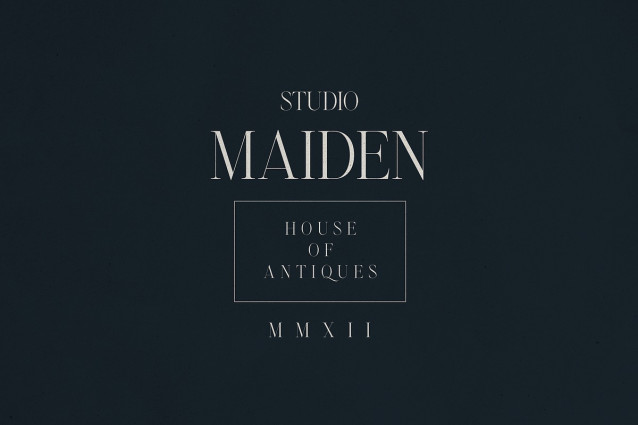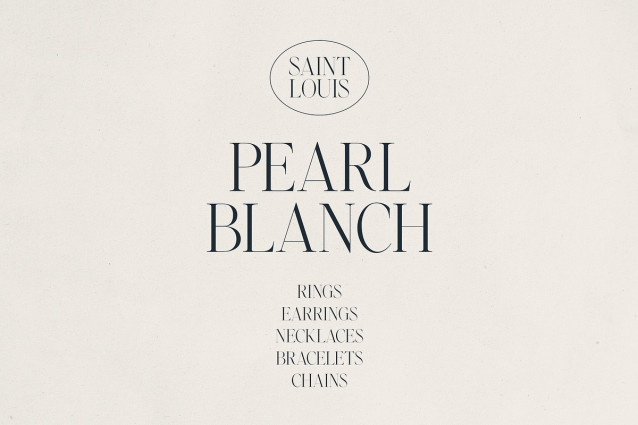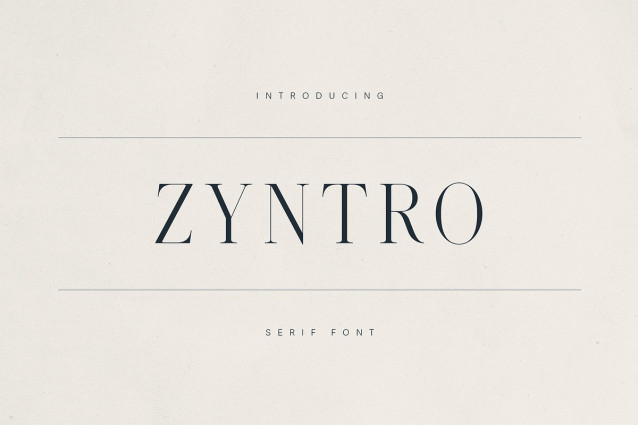
Zyntro Font
Zyntro Font is a refined and sophisticated serif font designed for premium branding, editorial design, and elegant packaging. With its high contrast strokes, delicate serifs, and timeless Roman-inspired structure, Zyntro exudes a sense of modern luxury and classic charm. Ideal for fashion labels, upscale product packaging, magazines, and boutique logos, this typeface creates a lasting impression.